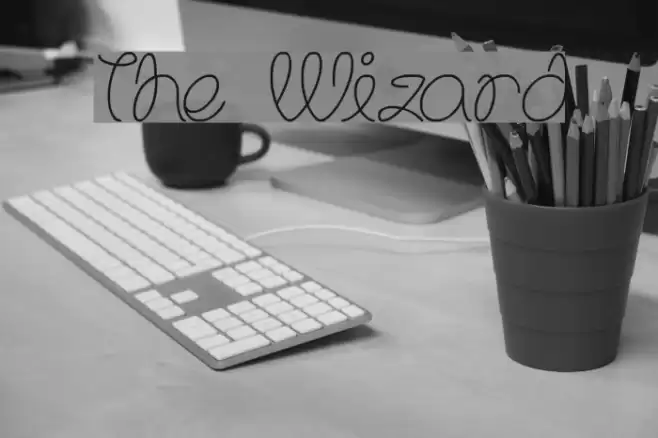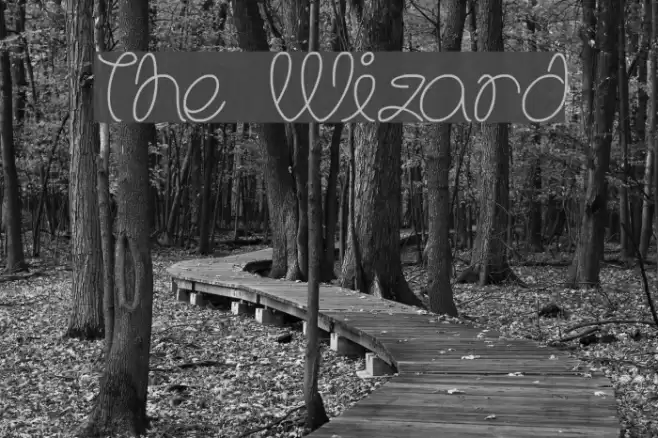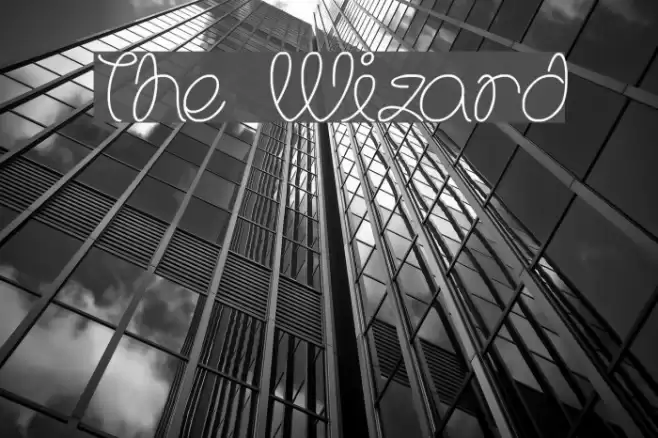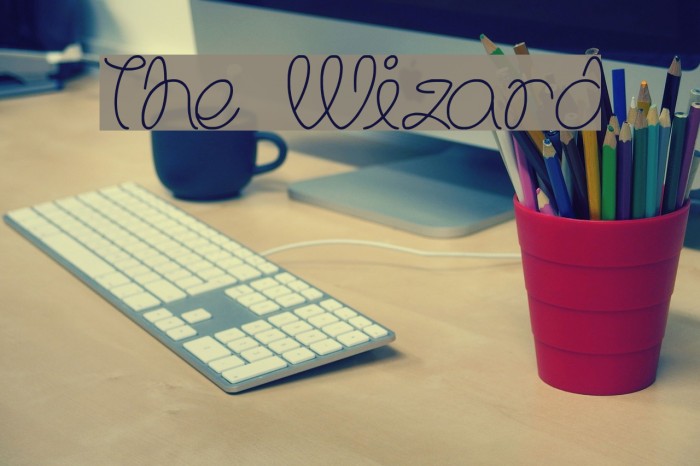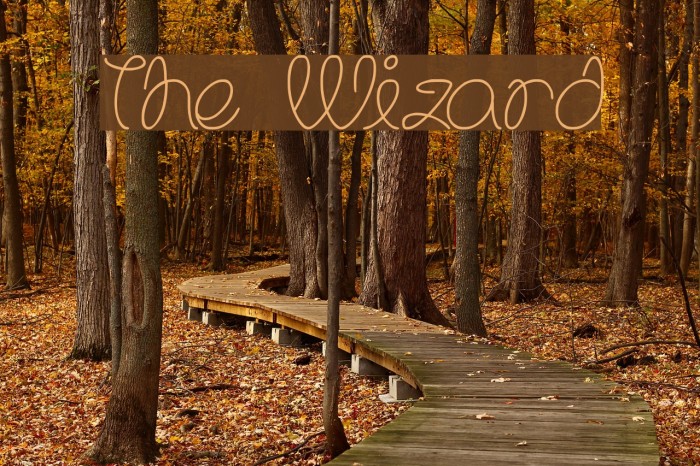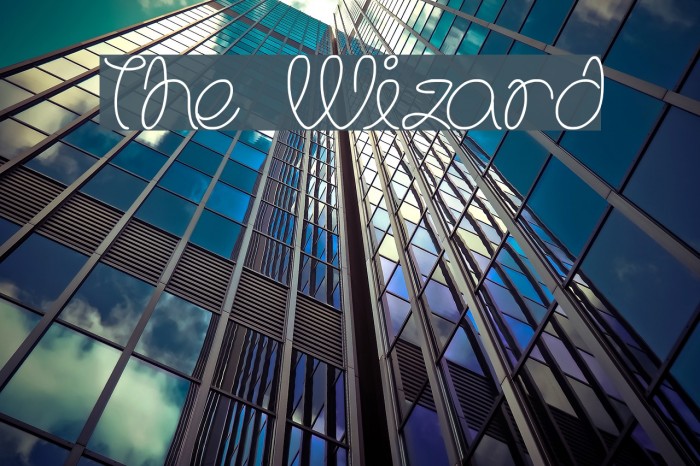
The Wizard Font
The Wizard Description
This font features an elegant and flowing script style, characterized by its interconnected and looping letterforms. The strokes are thin and delicate, giving it a graceful and airy appearance. Each character is crafted with a sense of movement, as if written with a calligraphic pen. The uppercase letters are particularly ornate, with intricate loops and swirls, while the lowercase letters maintain a consistent fluidity. This font exudes a sense of sophistication and charm, making it ideal for projects that require a touch of elegance and artistry.
An elegant, flowing script font with interconnected, looping letterforms from Uncategorized fonts.
- Proposed Projects: Ideal for wedding invitations, elegant branding, personal stationery, and artistic projects.
- Weight: Light
- Overall Style: Elegant
- Use Case: Logos, Invitations, Artistic projects